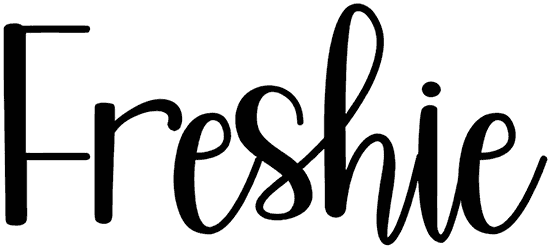
Freshie can be a superior game-changer that can turn any simple poster, illustration, logo, or business card into a miraculous piece of art. With the help of cursive style and curved characters, this handwritten font can add a vibe of minimalism, personalization, or momentum to your work.